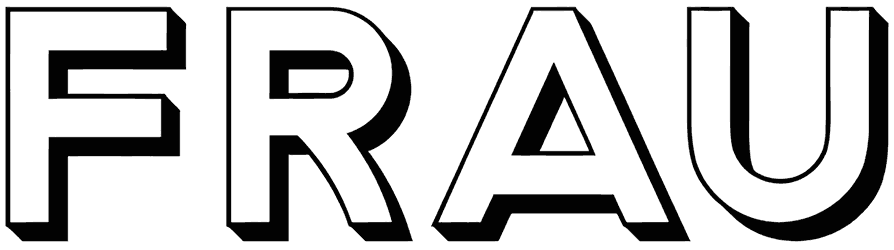
Frau Font
Use the basic outline font, Frau, to give your work a 3D appearance. However, this shadow font with its unique style may give off a more modern vibe, despite the lack of lowercase characters.
Its strong tune works well in banners, magazines, newspapers, UI design, and more. Employ this sans-serif font if you enjoy a good challenge and value making a good impression on clients. RB font files like this one are available for download.